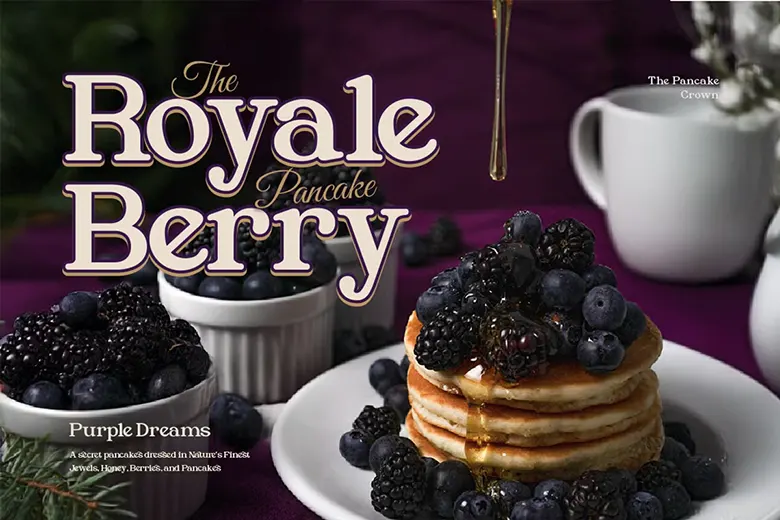
Funjoy is a rounded serif font that brings a happy and lively vibe to any design. It mixes classic style with a modern touch, perfect for projects that need a fun and friendly look. With alternates, ligatures, and multilingual support, Funjoy offers lots of creative options.
You can use it for branding, logos, packaging, menus, headlines, and social media. It’s a great choice when you want your design to feel warm and welcoming. Add Funjoy to your font collection and make your projects stand out with a cheerful personality!
Funjoy Serif Font
| Designer | Burntilldead |